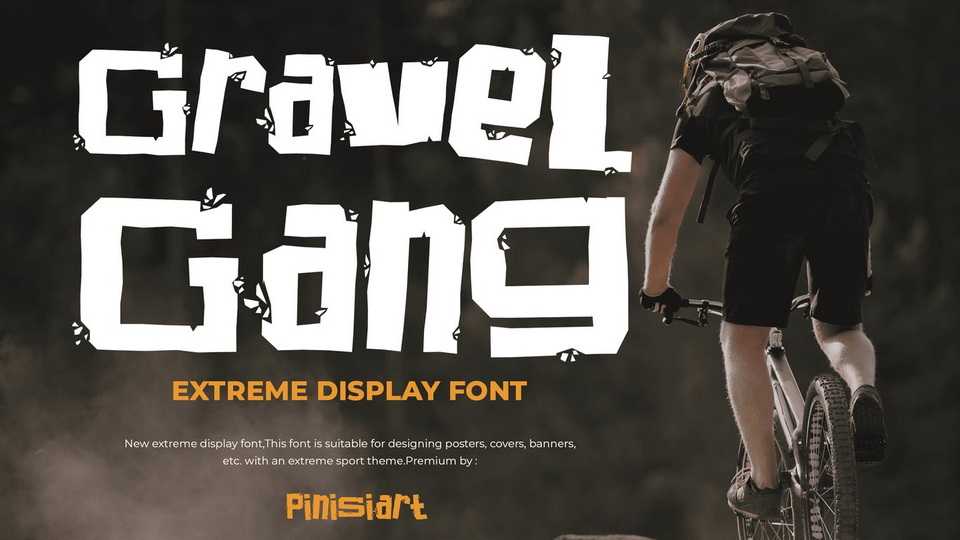
Download Gravel Gang font, a sporty display typeface inspired by spitting tones, the sound of grinding gravel road crush by the bicycle. Gravel Gang is what the extreme sports world needed.